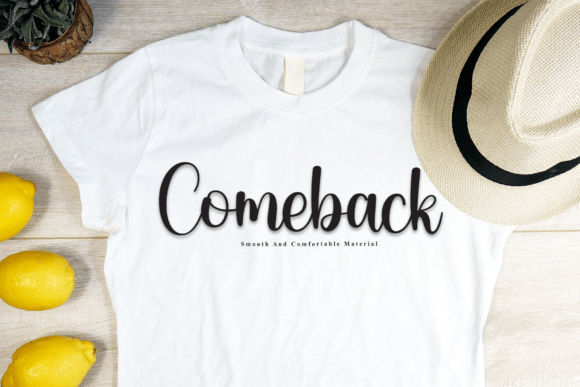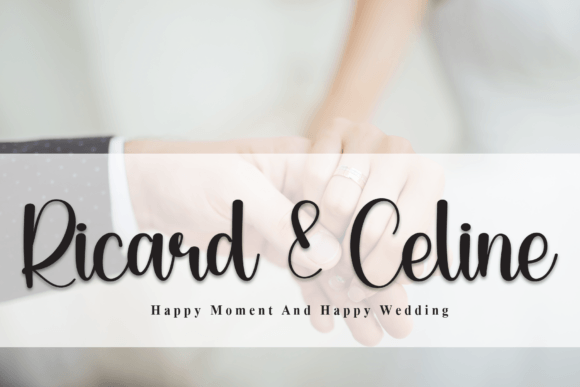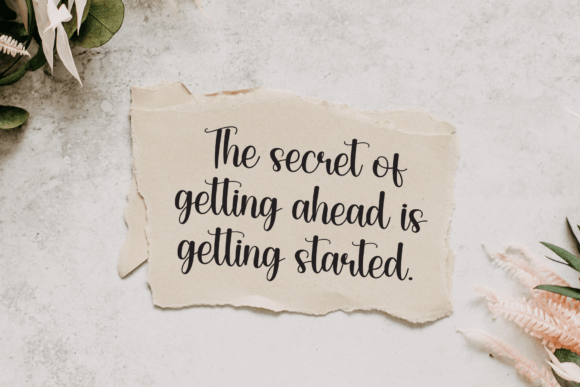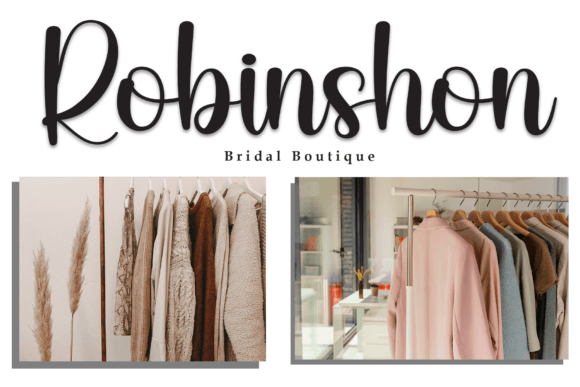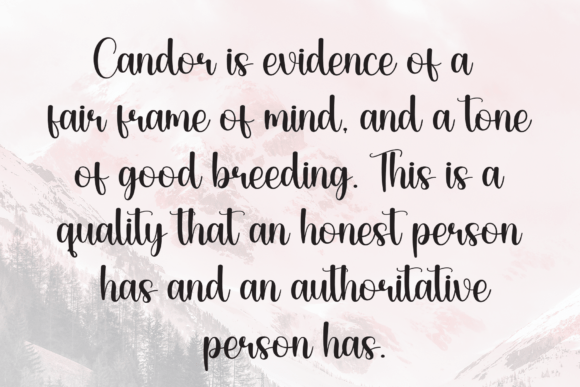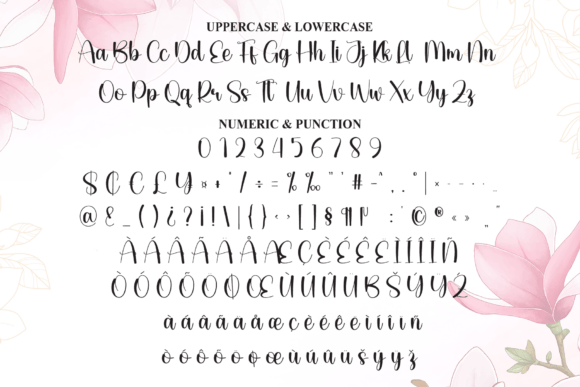
Introduction to Karmilla Font
Karmilla is a bold handwritten font that combines a casual feel with a strong presence.
Its thick, flowing letters create an eye-catching and friendly vibe, making it perfect for creative projects, invitations, and personal branding .